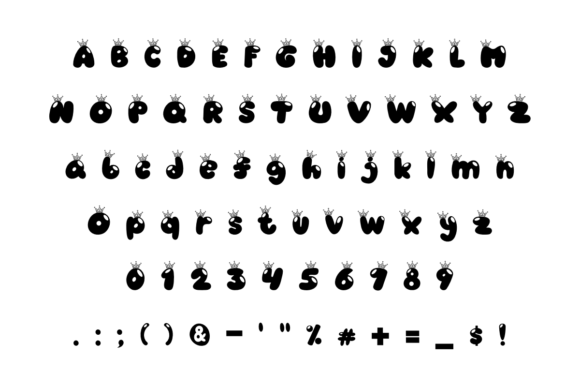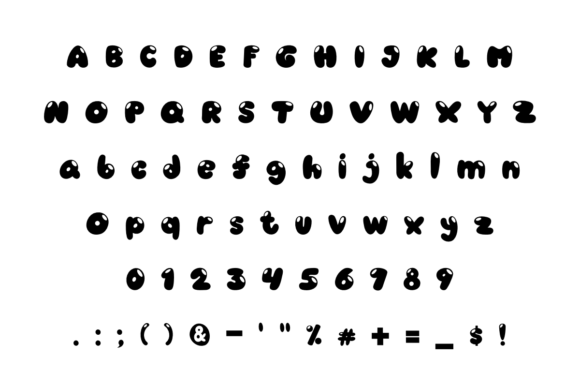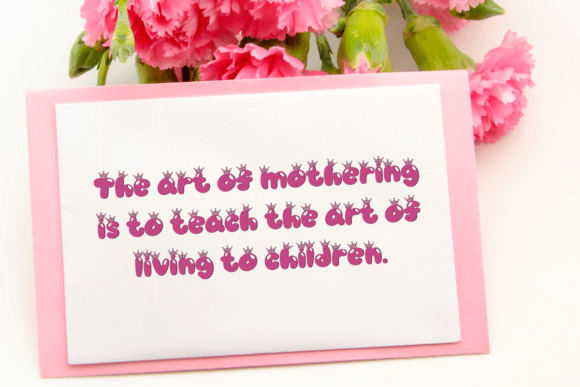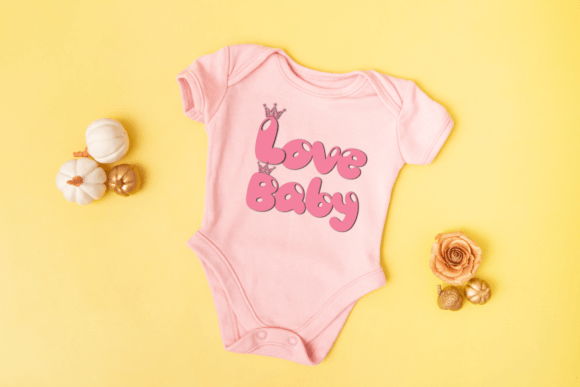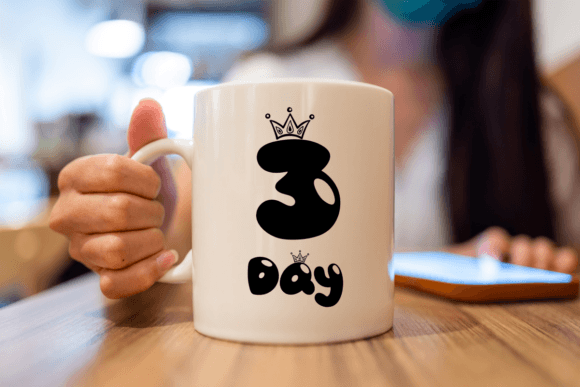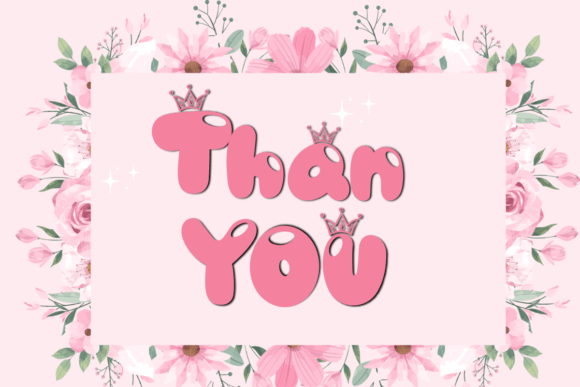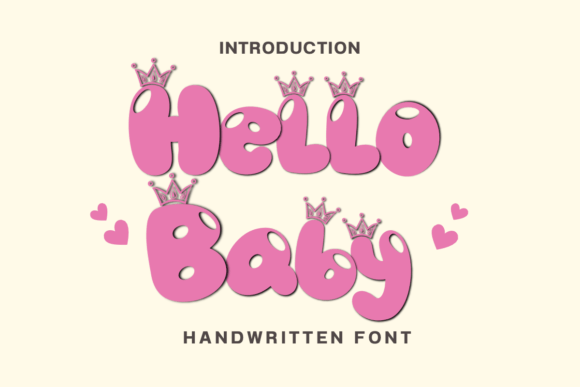
Hello Baby Font: A Playful and Whimsical Typeface for Your Designs
Hello Baby Font is a delightful and charming typeface that is sure to capture the hearts of designers and crafters alike. This playful decorative font features chubby balloon-like letters adorned with adorable little crowns on top of each letter, making it perfect for adding a touch of whimsy and charm to your designs.
What Makes Hello Baby Font So Special?
Hello Baby Font is a unique and eye-catching typeface that stands out from the crowd. Its distinctive features include:
- Chubby balloon-like letters: Each letter in the Hello Baby Font has a soft, rounded, and puffy appearance, giving it a friendly and approachable feel.
- Adorable little crowns: The crowns on top of each letter add a touch of royalty and sophistication, making the font perfect for designs that require a sense of luxury and elegance.
- Playful and whimsical feel: The combination of the chubby letters and crowns creates a playful and whimsical feel that is sure to delight audiences of all ages.
Hello Baby Font is a versatile typeface that can be used in a variety of design projects, including:
- Digital crafts: Use Hello Baby Font to create adorable digital crafts, such as printable art, party decorations, and social media graphics.
- Branding and packaging: Add a touch of whimsy and charm to your brand’s packaging and marketing materials with Hello Baby Font.
- Wedding and event planning: Use Hello Baby Font to create beautiful and unique wedding and event decorations, such as invitations, signs, and banners.
- Children’s products: Hello Baby Font is perfect for designing children’s products, such as toys, books, and clothing.
Why Choose Hello Baby Font?
There are many reasons why designers and crafters choose Hello Baby Font for their projects. Here are a few:
- Unique and eye-catching: Hello Baby Font is a one-of-a-kind typeface that is sure to grab attention and stand out from the crowd.
- Scalable: Hello Baby Font is a scalable typeface that can be used in a variety of sizes, from small to large, without losing its quality.
- Fun and creative: Hello Baby Font is a fun and creative typeface that is sure to inspire your designs and bring a smile to your face.
Tips for Using Hello Baby Font
Here are a few tips for using Hello Baby Font in your designs:
- Pair with a simple font: Pair Hello Baby Font with a simple font to create contrast and make your design stand out.
- Use in moderation: Use Hello Baby Font in moderation to avoid overwhelming your design. A little bit of whimsy and charm can go a long way.
- Experiment with colors: Experiment with different colors and textures to add depth and interest to your design.
- Have fun: Most importantly, have fun with Hello Baby Font! It’s a playful and creative typeface that is sure to bring joy to your designs.
Hello Baby Font is a delightful and charming typeface that is perfect for designers and crafters who want to add a touch of whimsy and charm to their designs. With its chubby balloon-like letters and adorable little crowns, Hello Baby Font is sure to delight audiences of all ages. Whether you’re creating digital crafts, branding and packaging, or children’s products, Hello Baby Font is a versatile typeface that is sure to inspire your designs.